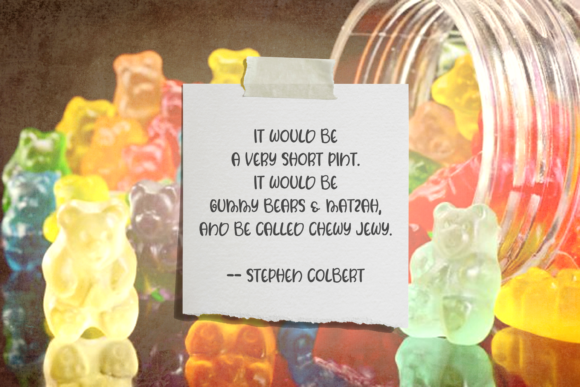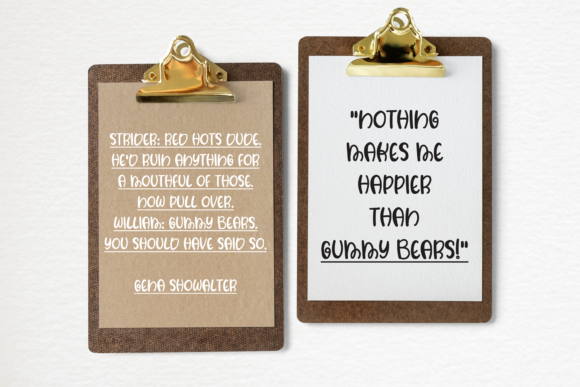
Gummy Bear Font
db-ku.com - Script & Handwritten -- Gummy Bear is a sweet & cute handwritten font. Get inspired by its incredibly playful feel. This is an all caps font. Use this font to turn any design project into a standout!